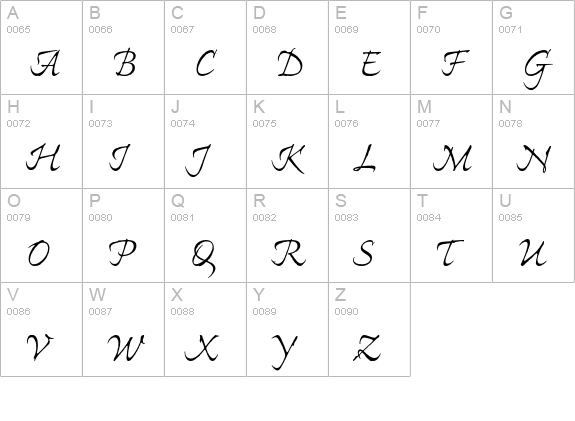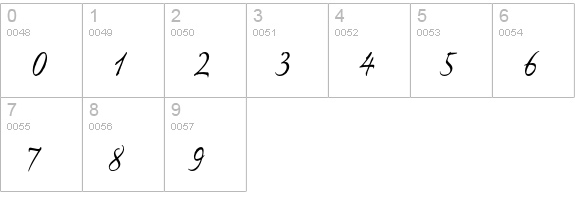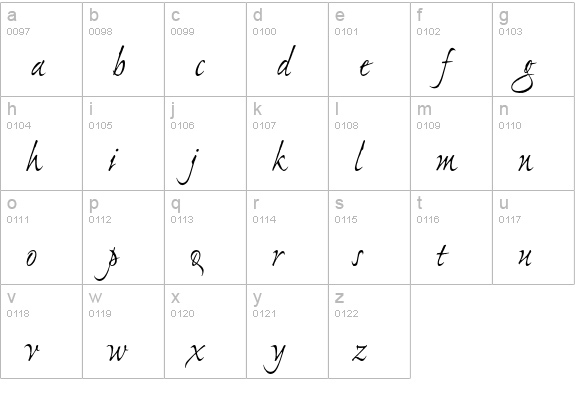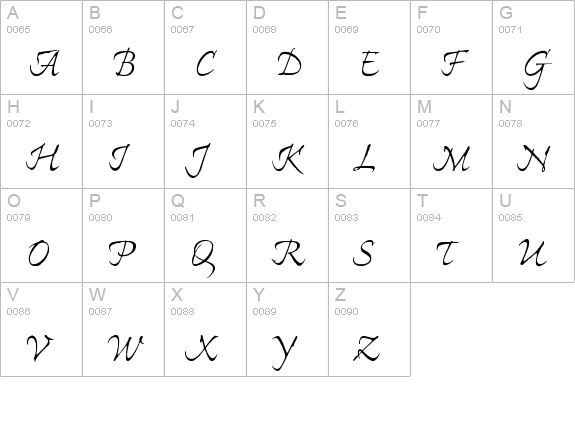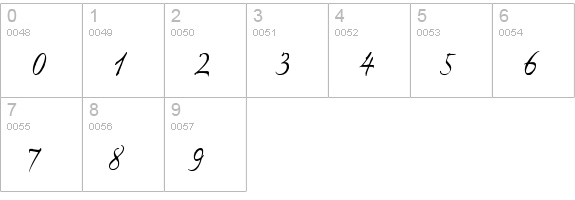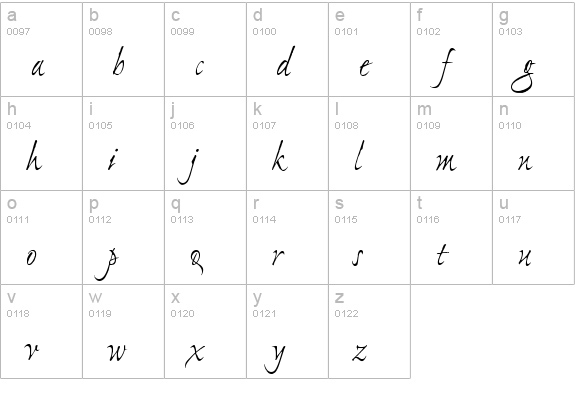
Ex Ponto Regular Font Details
Ex Ponto Regular is the standard, neutral variant in the Ex typeface family \xE2\x80\x94 well suited to general body text, paragraphs, and standard typographic work.
Ex Ponto Regular font is a timeless and elegant typeface that exudes sophistication and charm. With its classic and versatile design, this font is perfect for a wide range of design projects, including branding, editorial design, and more. The clean lines and balanced proportions of Ex Ponto Regular make it a great choice for both print and digital applications. What makes Ex Ponto Regular even more appealing is that it is available for free download at FontsMarket.com. This means that you can easily access this beautiful font and use it in your projects without any cost. Don't miss out on the opportunity to add Ex Ponto Regular to your font collection and elevate your designs with its refined aesthetic.